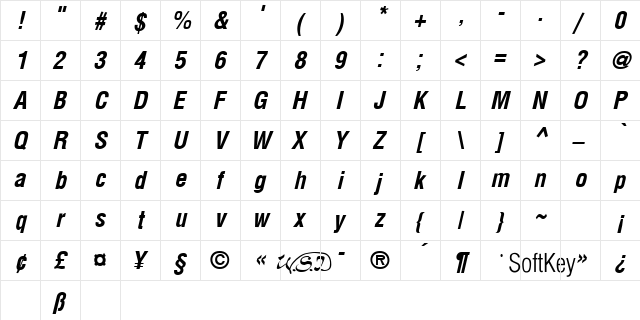
SuperDome-CondBold-Italic Regular Font Preview
Design Context for SuperDome-CondBold-Italic Typeface
SuperDome-CondBold-Italic takes a measured approach to typography — its balanced proportions and neutral character make it a reliable workhorse for both digital and print work. The slanted form adds forward momentum and visual energy. The heavy weight commands attention and anchors typographic hierarchies. The condensed width makes it efficient for tight spaces without sacrificing legibility.
Pro Tip: Try SuperDome-CondBold-Italic for annotation and caption copy alongside an upright companion — the contrast in angle creates a dynamic but ordered typographic system.